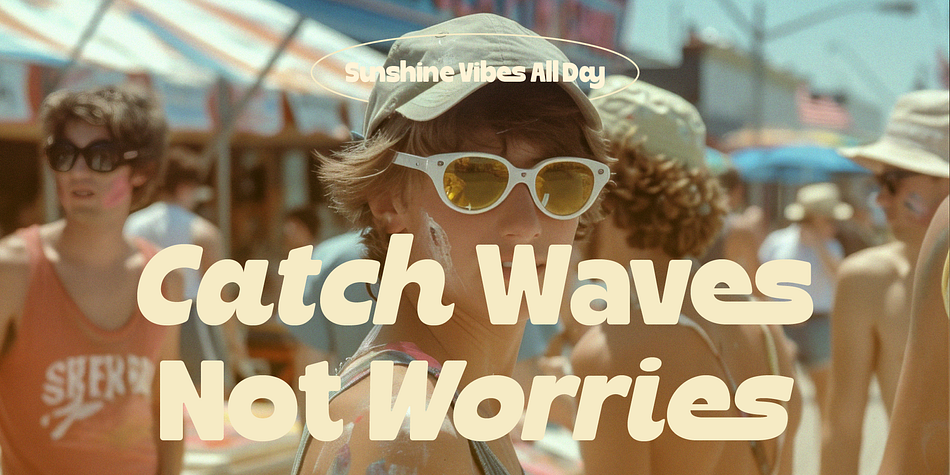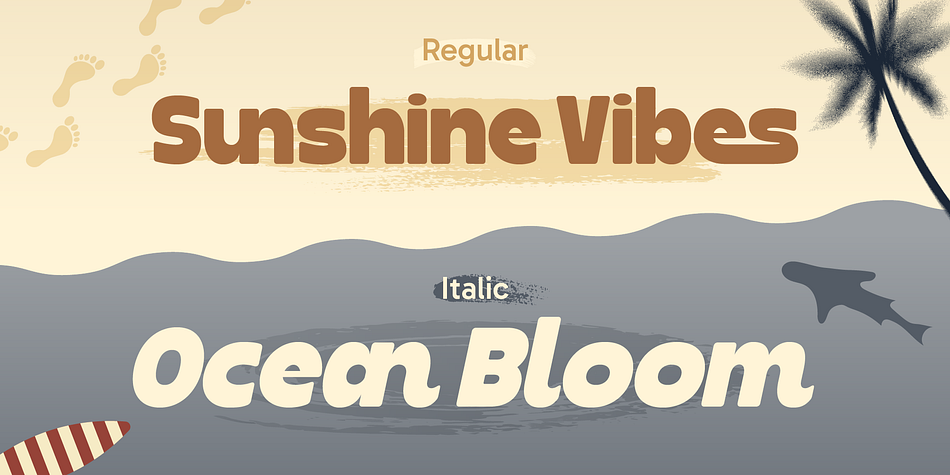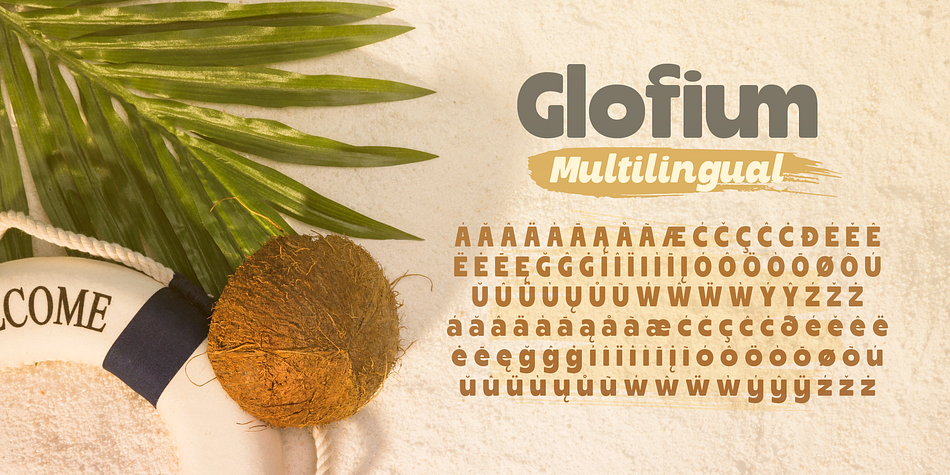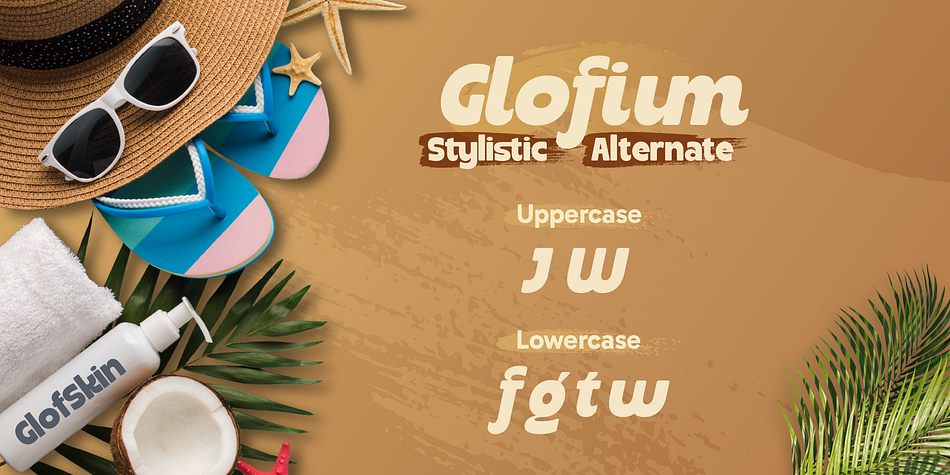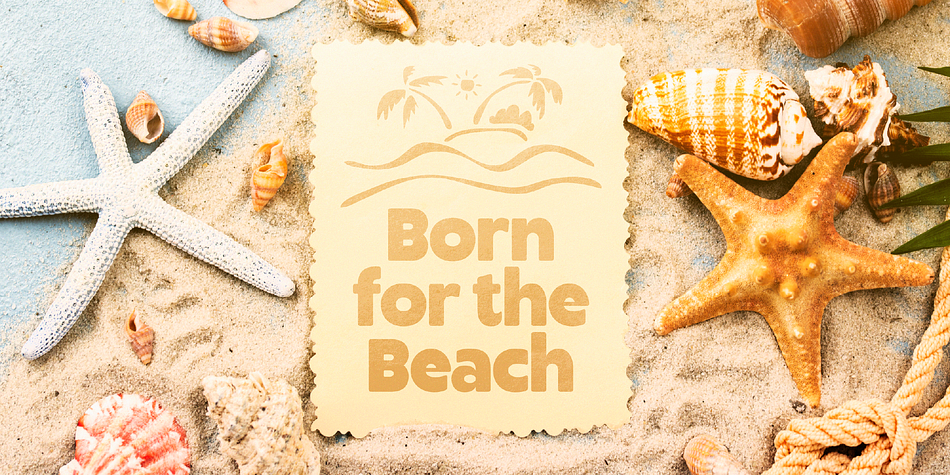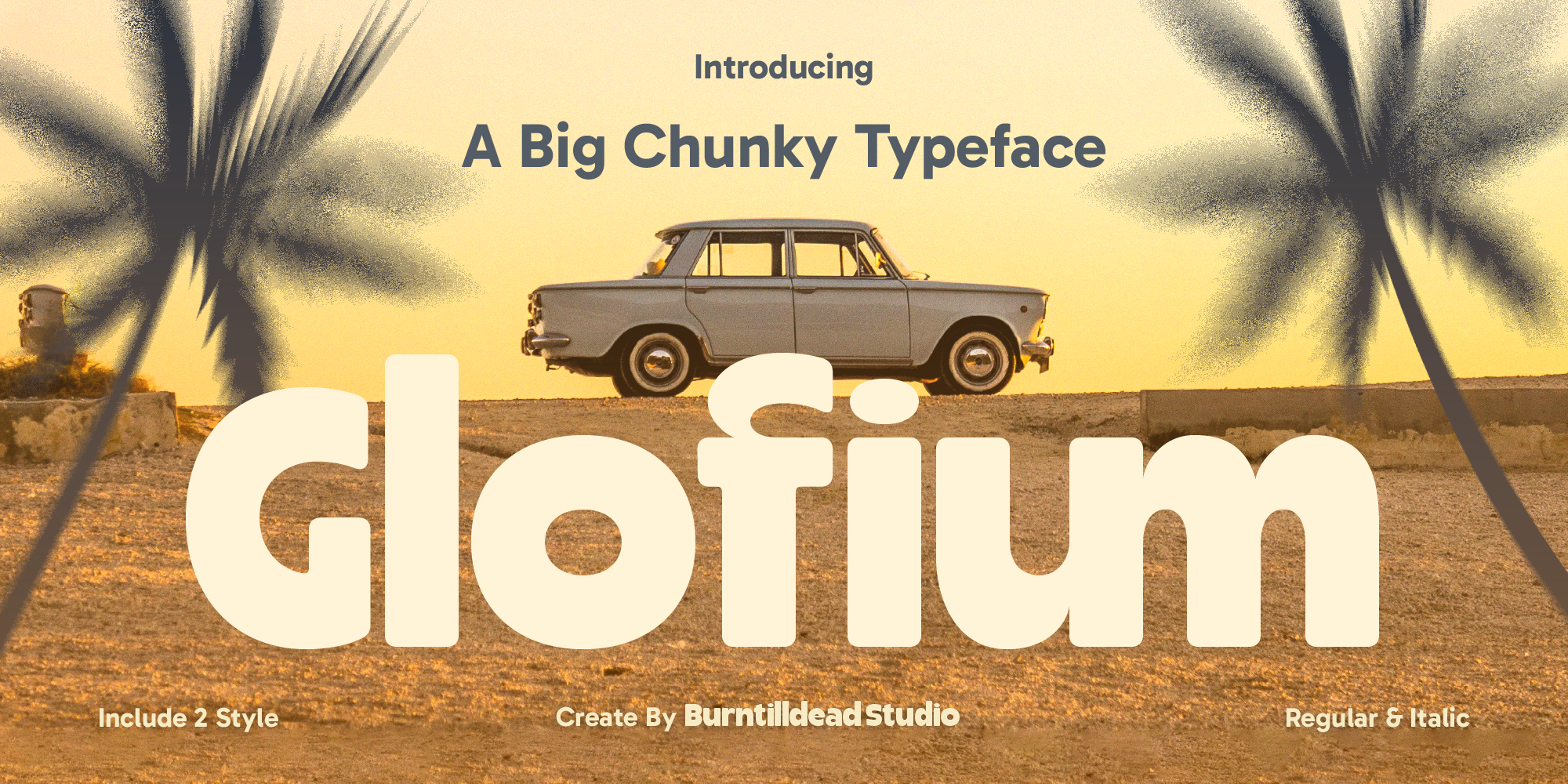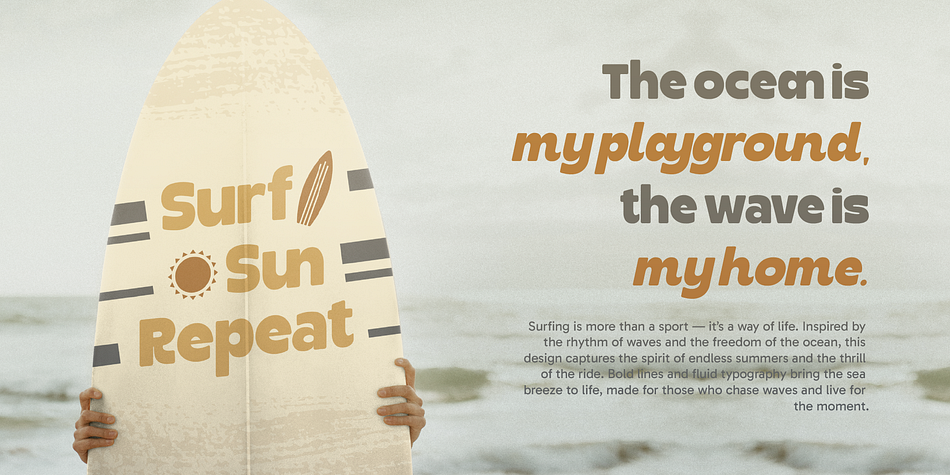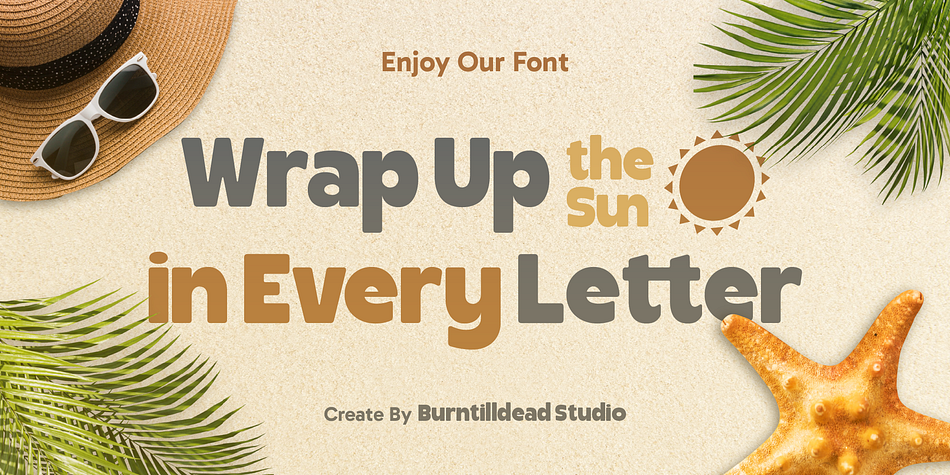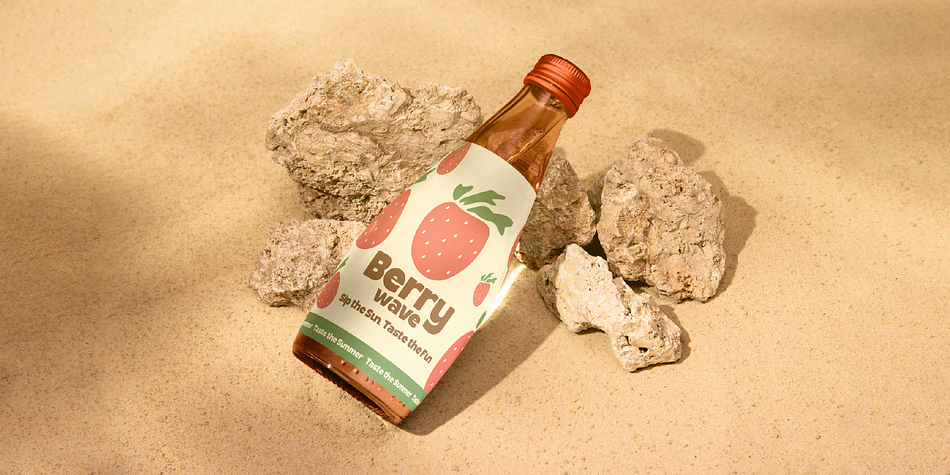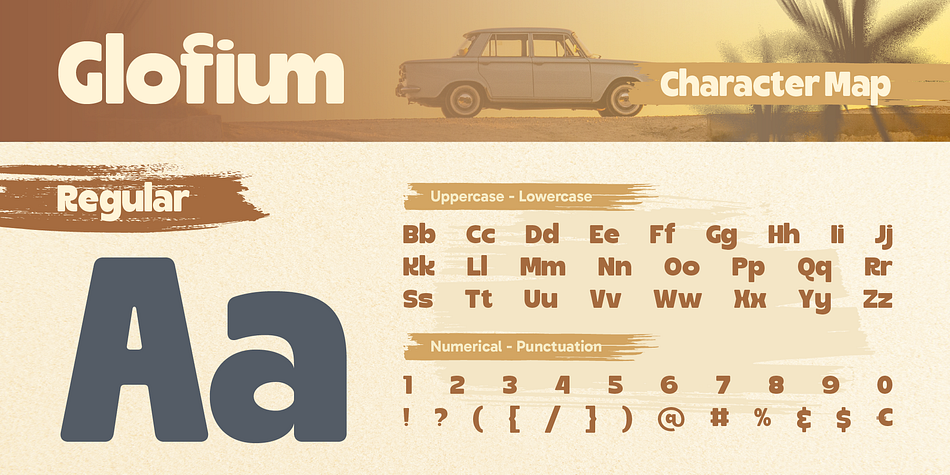
Glofium
Designed by Eric Kurniawan, Glofium is a sans serif font family. This typeface has two styles and was published by Burntilldead.
Say hello to Glofium, a bold and chunky typeface that’s super fun to use and easy to read. It comes with 2 styles: Regular dan Italic, so you can mix things up and keep your design looking fresh. This font have characterize of warm, friendly and impossible to ignore. If you’re working on a poster, branding project, social media post, poster, big headlines, product packaging or just want your words to stand out, Glofium got your back! The shapes are thick, rounded and friendly - making your text look bold but still super easy to read.